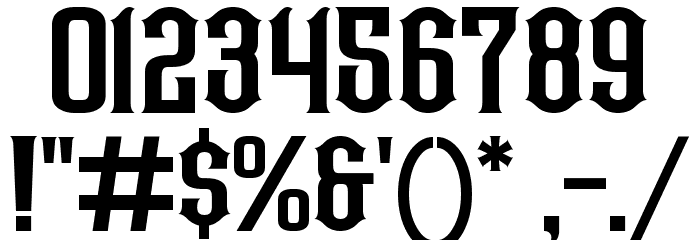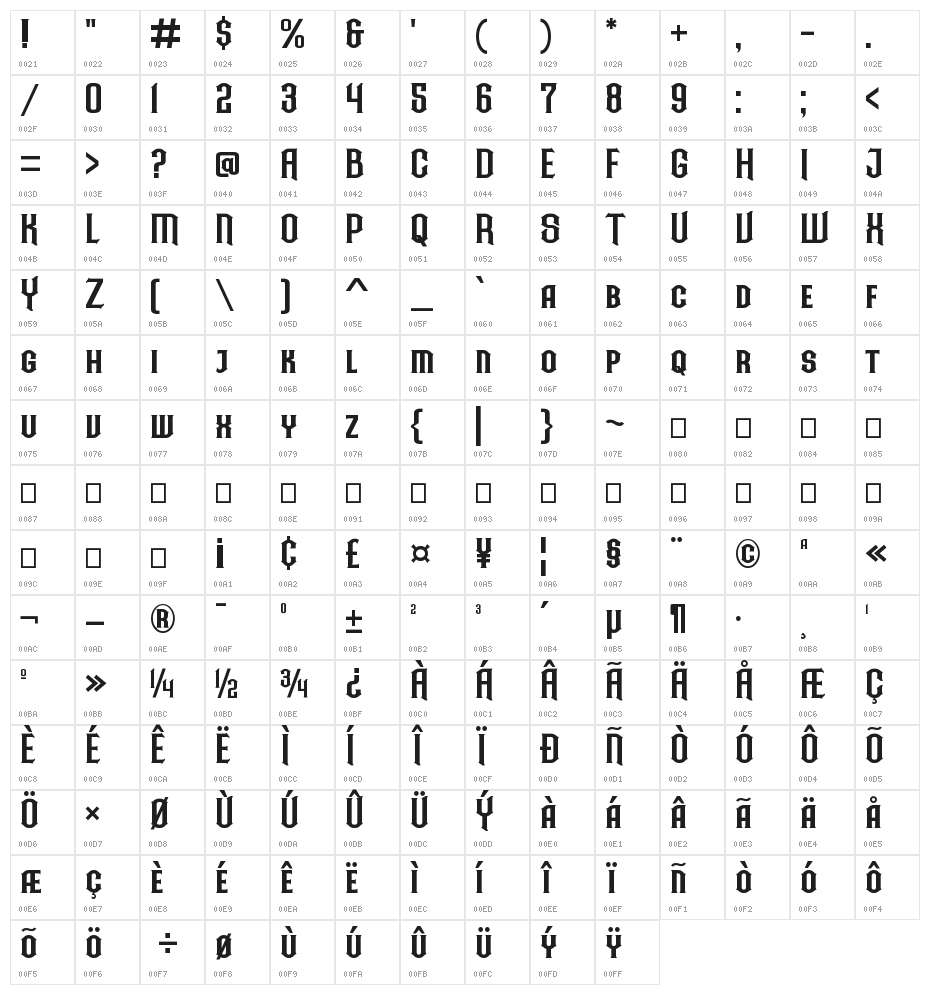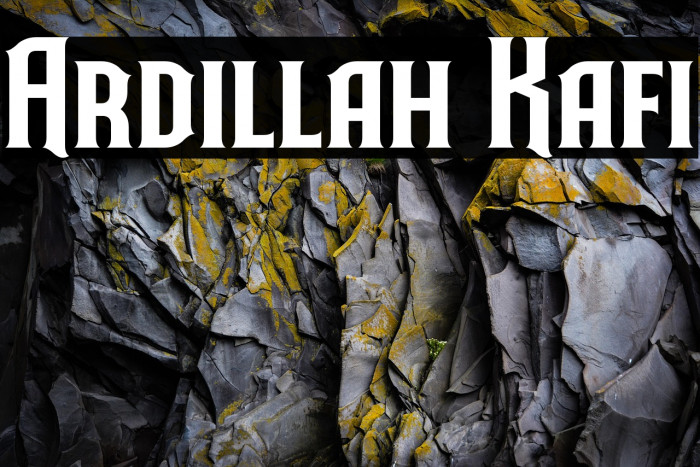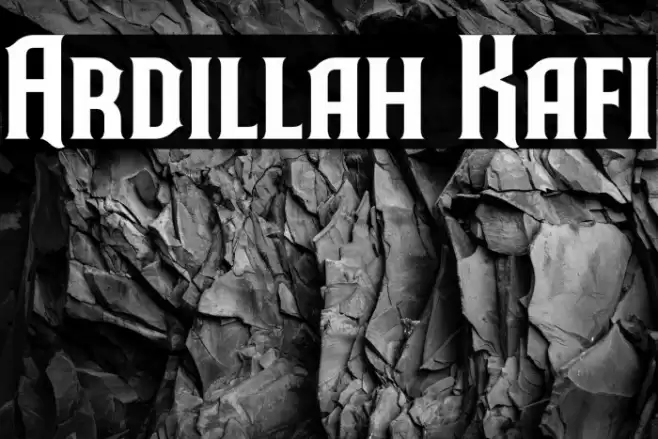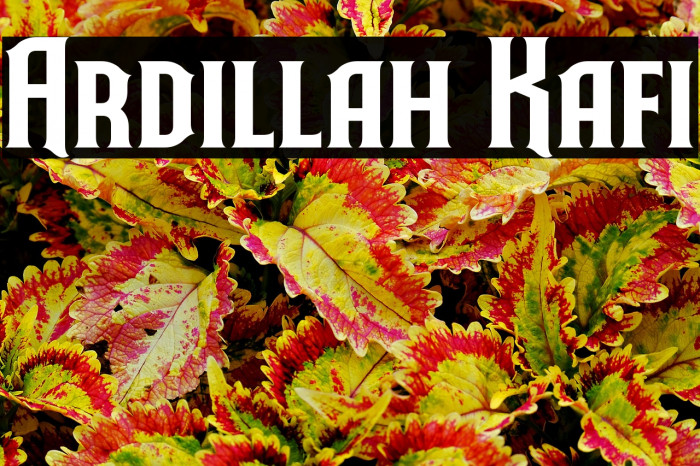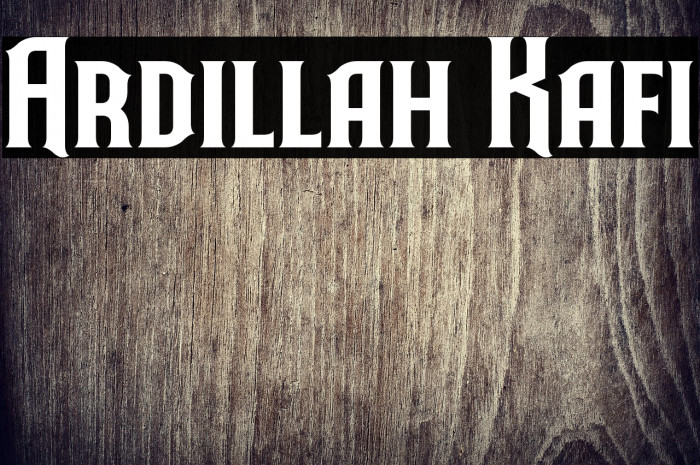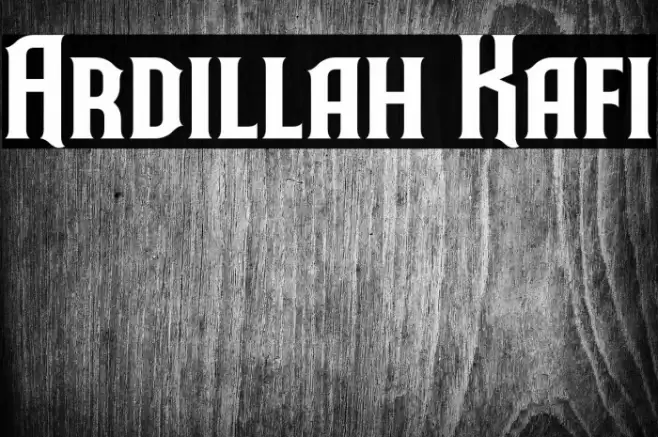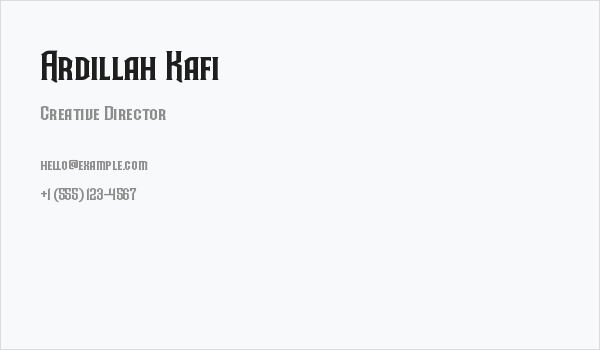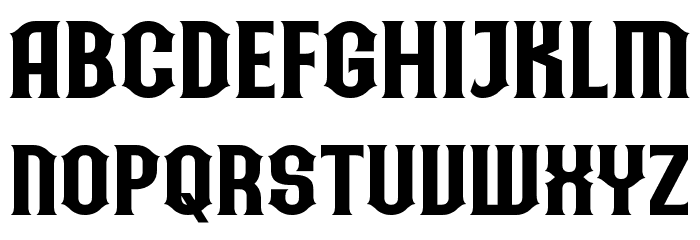
Ardillah Kafi Font
Ardillah Kafi Description
This font features a bold and striking design with a strong presence. The characters are crafted with sharp, angular edges and a consistent stroke width, giving it a robust and authoritative appearance. The uppercase letters are particularly prominent, with a gothic-inspired style that adds a touch of drama and elegance. The numerals and special characters maintain the same boldness and angularity, ensuring a cohesive look across all elements. This font is ideal for making a statement and capturing attention with its distinctive and memorable style.